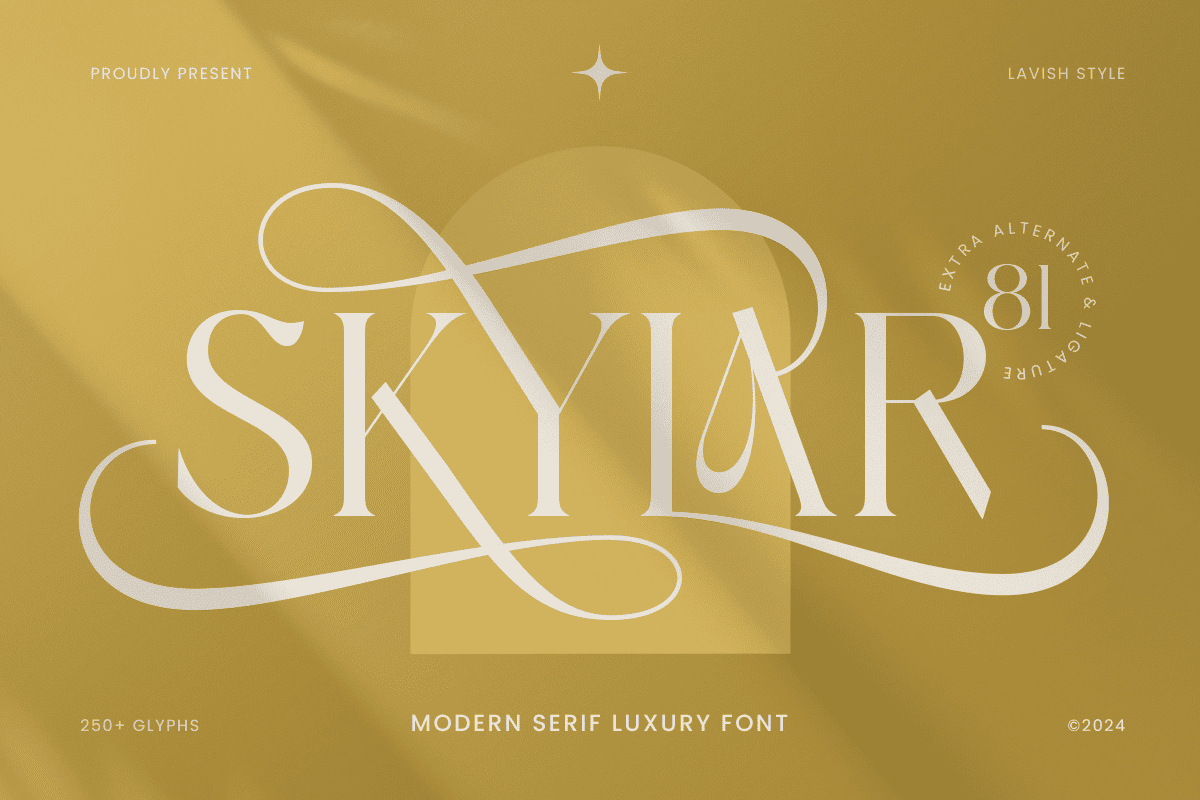
Skylar
-Modern Serif Luxury FontSkylar - Modern Serif Luxury Font
Skylar is a modern serif luxury font designed to radiate sophistication and class. Its elegant curves and refined serifs bring a timeless charm to your projects, making it a perfect choice for high-end branding.
Ideal for Luxury Branding
Skylar is tailored for logos, fashion editorials, wedding invitations, and other premium projects. Its exquisite design ensures that your work embodies exclusivity and elegance, captivating audiences with its stylish simplicity.
Refined Design for Creative Minds
Whether you’re crafting a luxurious brand identity or creating a chic editorial layout, Skylar empowers you with a font that seamlessly blends modern aesthetics with classic sophistication.
Skylar Modern Serif Luxury Font Features:
Alternates Characters Ready